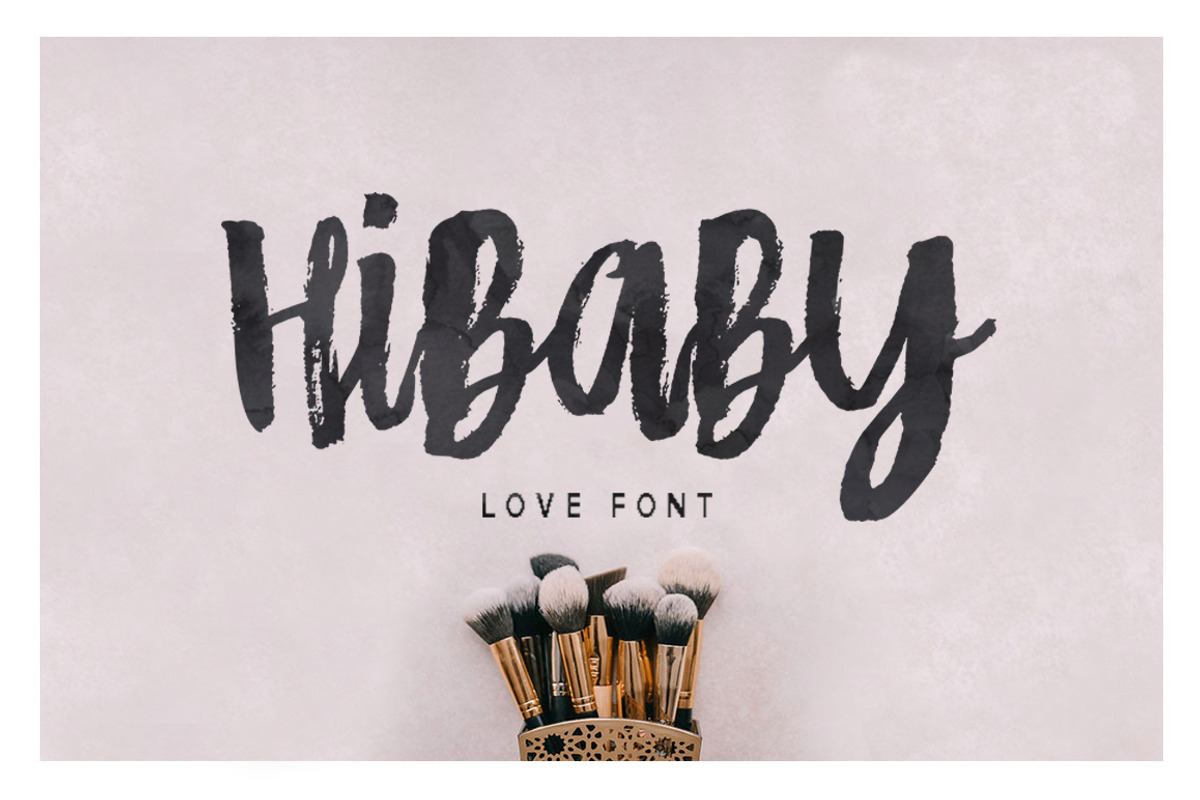
Hibaby Love Font Free Download
Hibaby Love Font Free Download is a sweet, bubbly handwritten typeface full of warmth and charm. With its rounded strokes and playful personality, this font is perfect for baby shower invitations, children's products, greeting cards, Instagram posts, and any design that needs a dose of love and joy.
Hibaby Love brings a handwritten, affectionate feel that works wonderfully in both digital and print formats. Its friendly vibe makes it ideal for family-themed branding, nursery decor, and heartfelt messaging.
The font includes uppercase and lowercase letters, numbers, punctuation, and basic multilingual support. It’s easy to use and pairs beautifully with soft color palettes and cute illustrations.